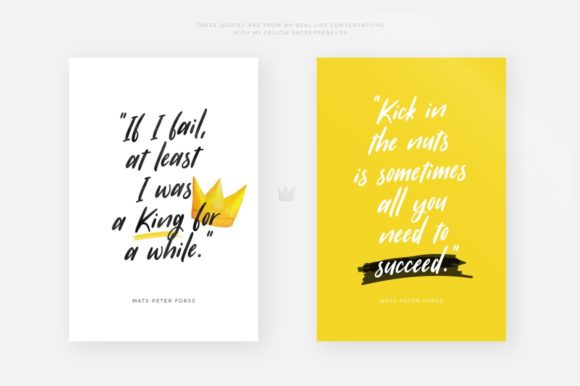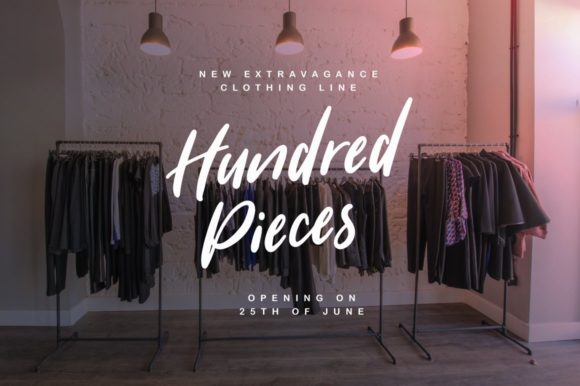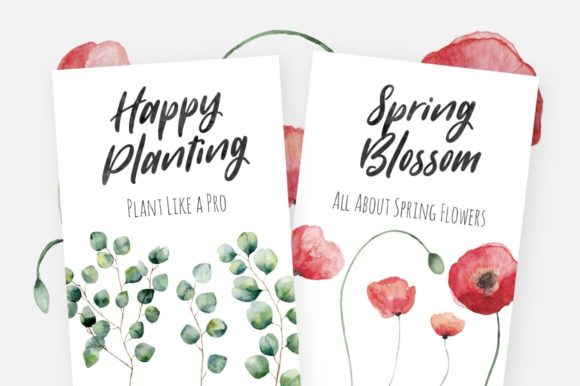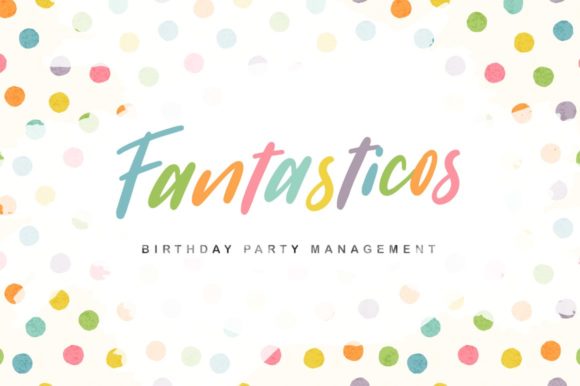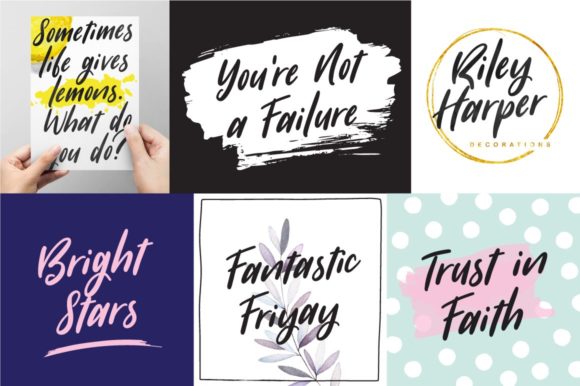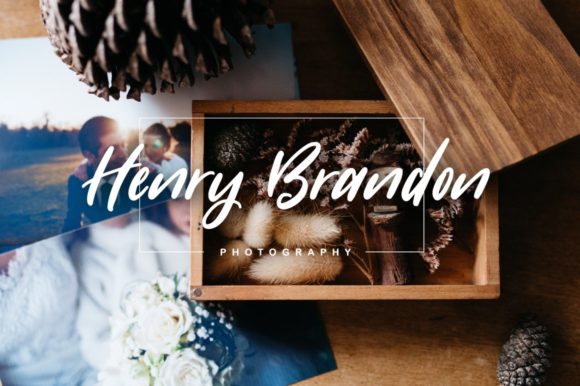
Sugarstyle Millenial Font
About Sugarstyle Millenial Font
Sugarstyle Millenial is a handmade font that radiates love and energy. Get inspired by its bold and authentic lettering.